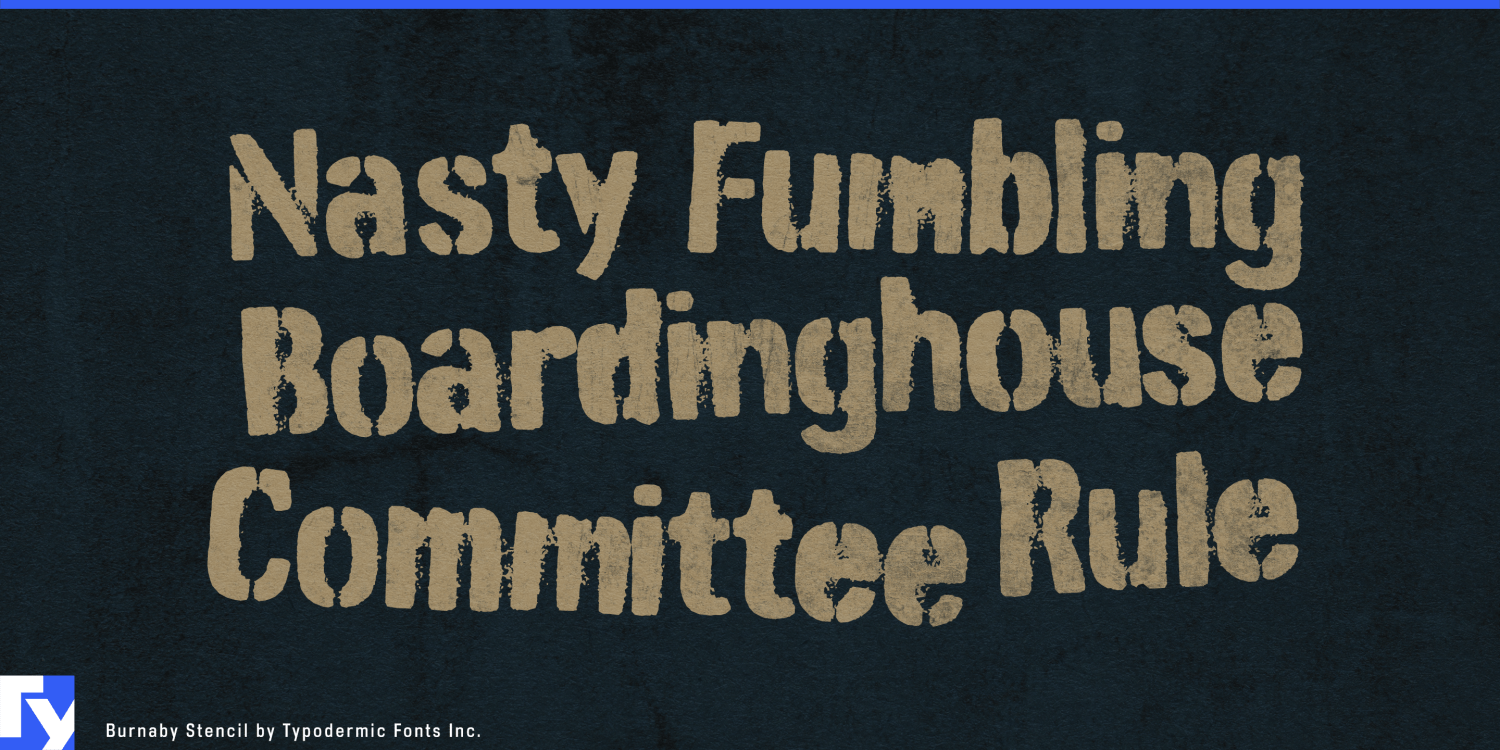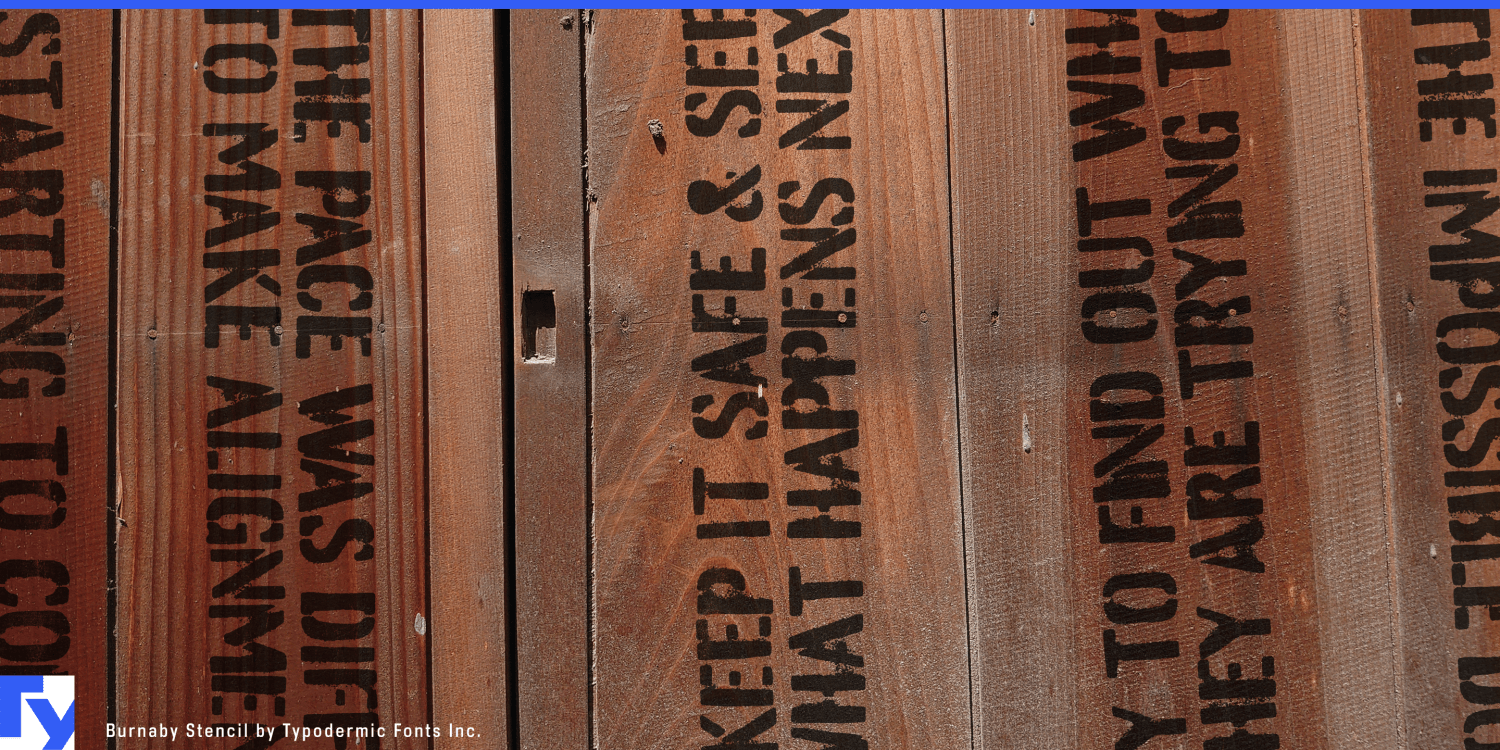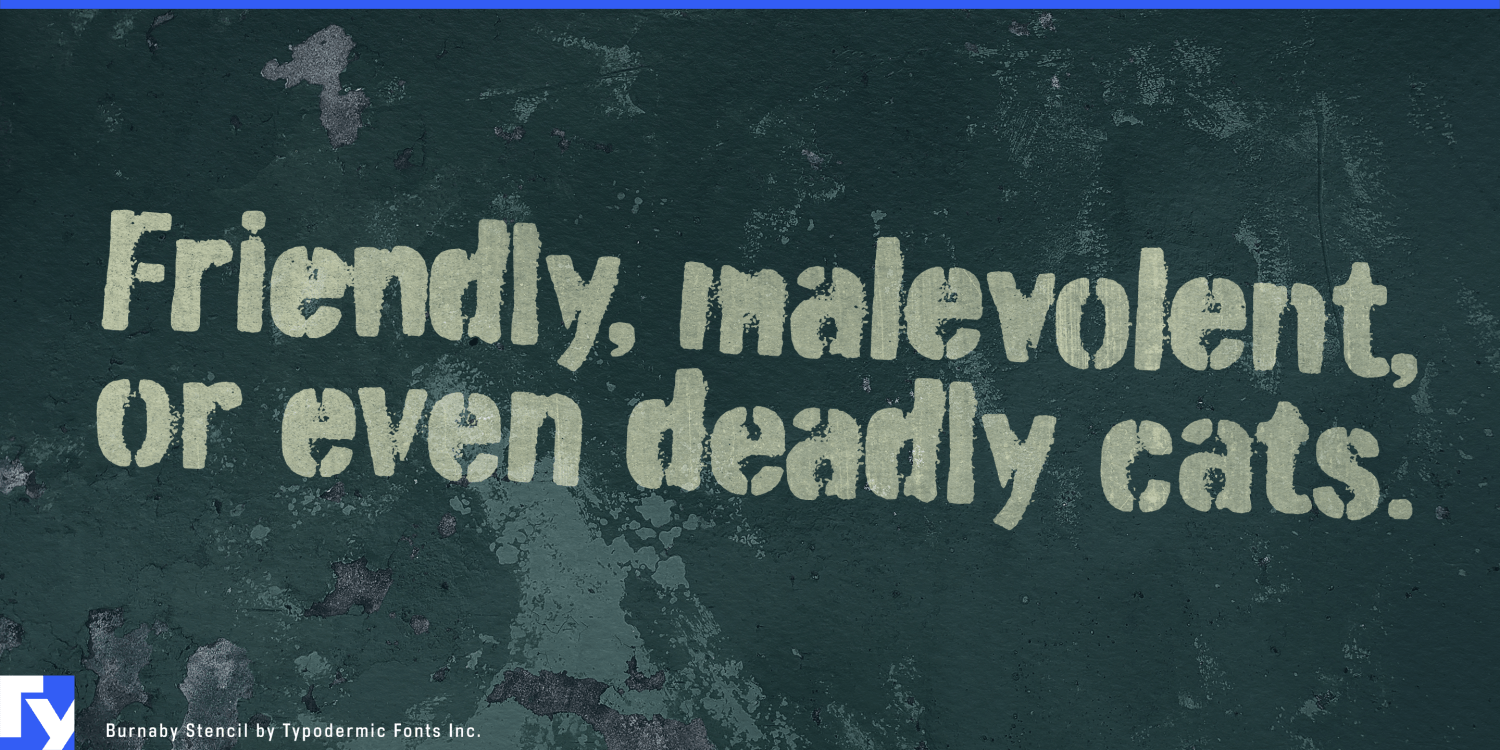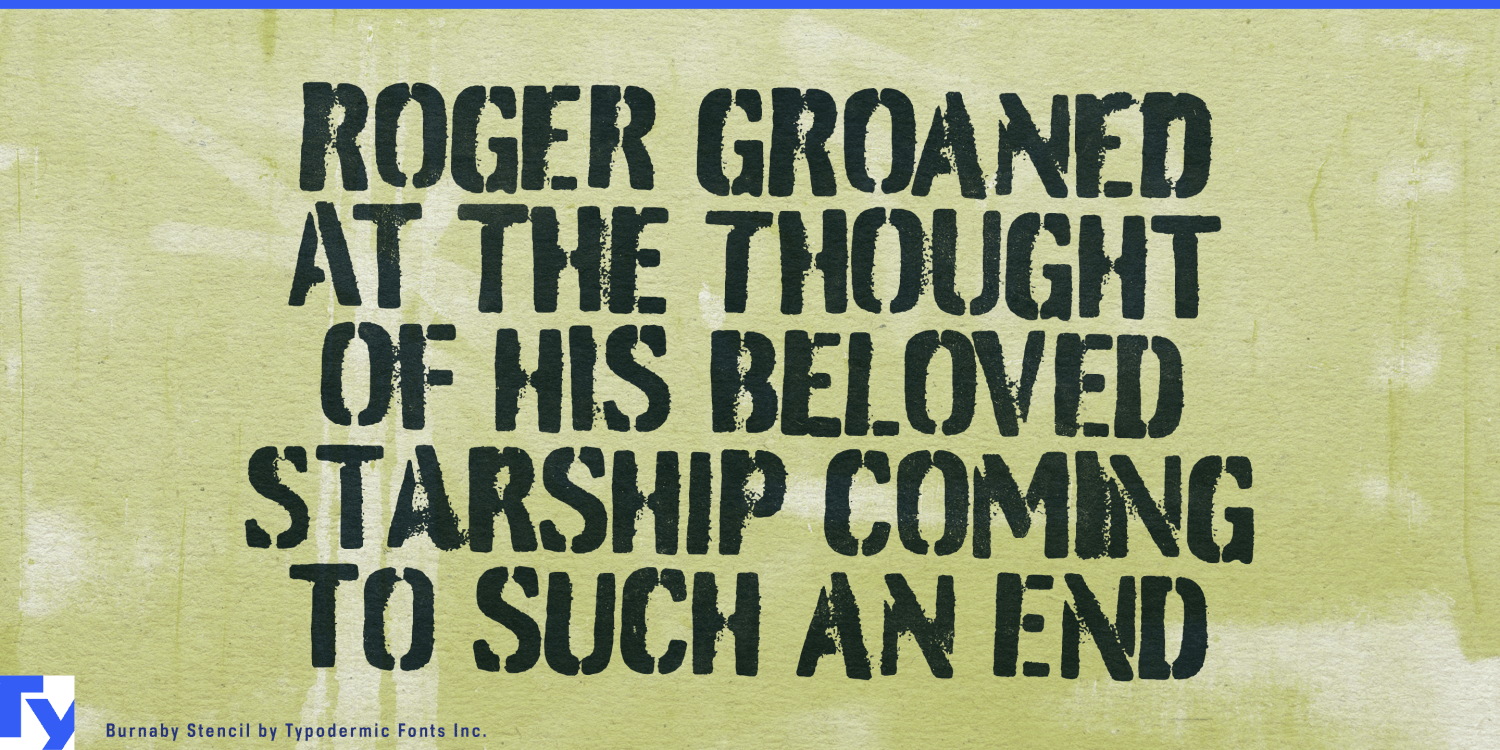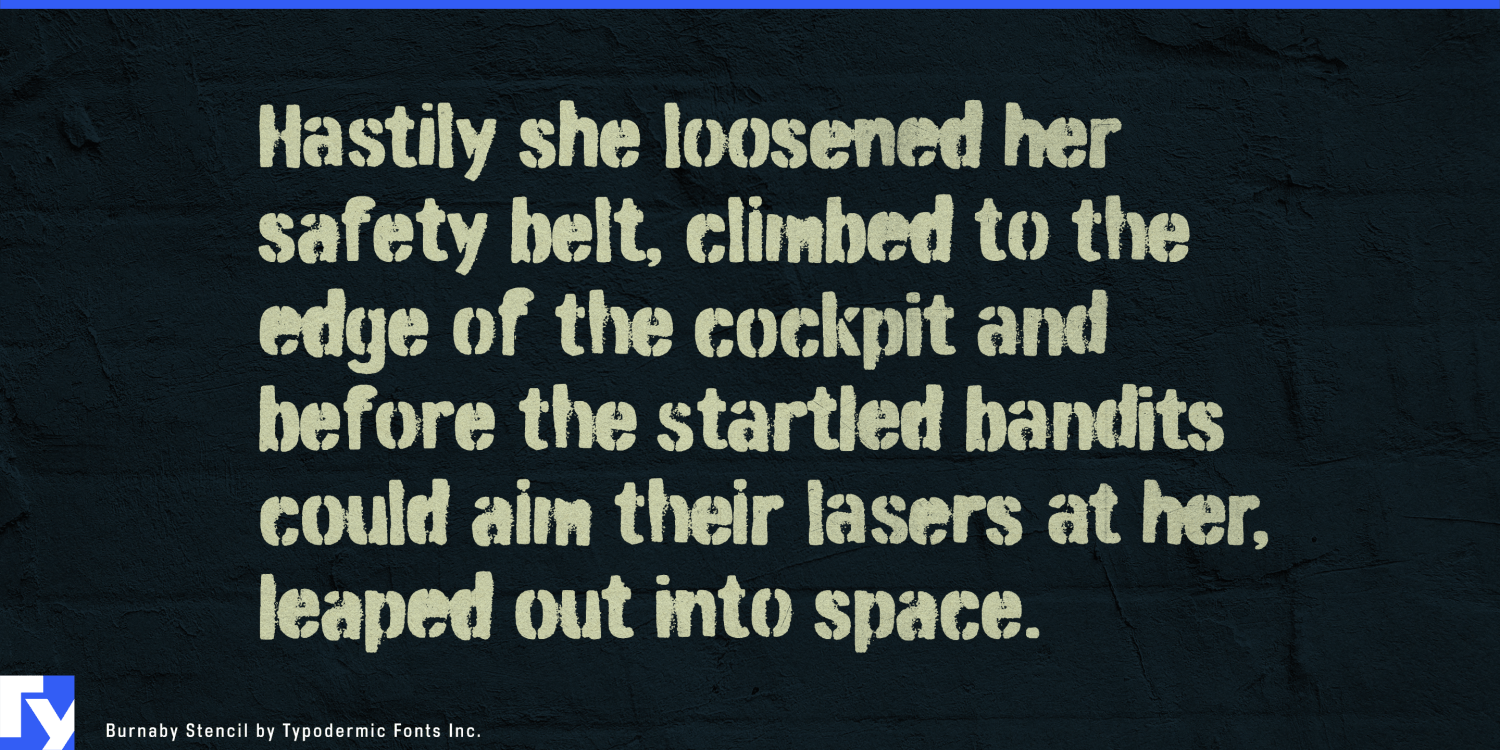
About Burnaby Stencil
Step into the urban jungle with Burnaby Stencil, a typeface that doesn’t just speak—it roars. This font family captures the raw essence of street art, bringing the gritty authenticity of spray-painted stencils to your digital canvas. With…